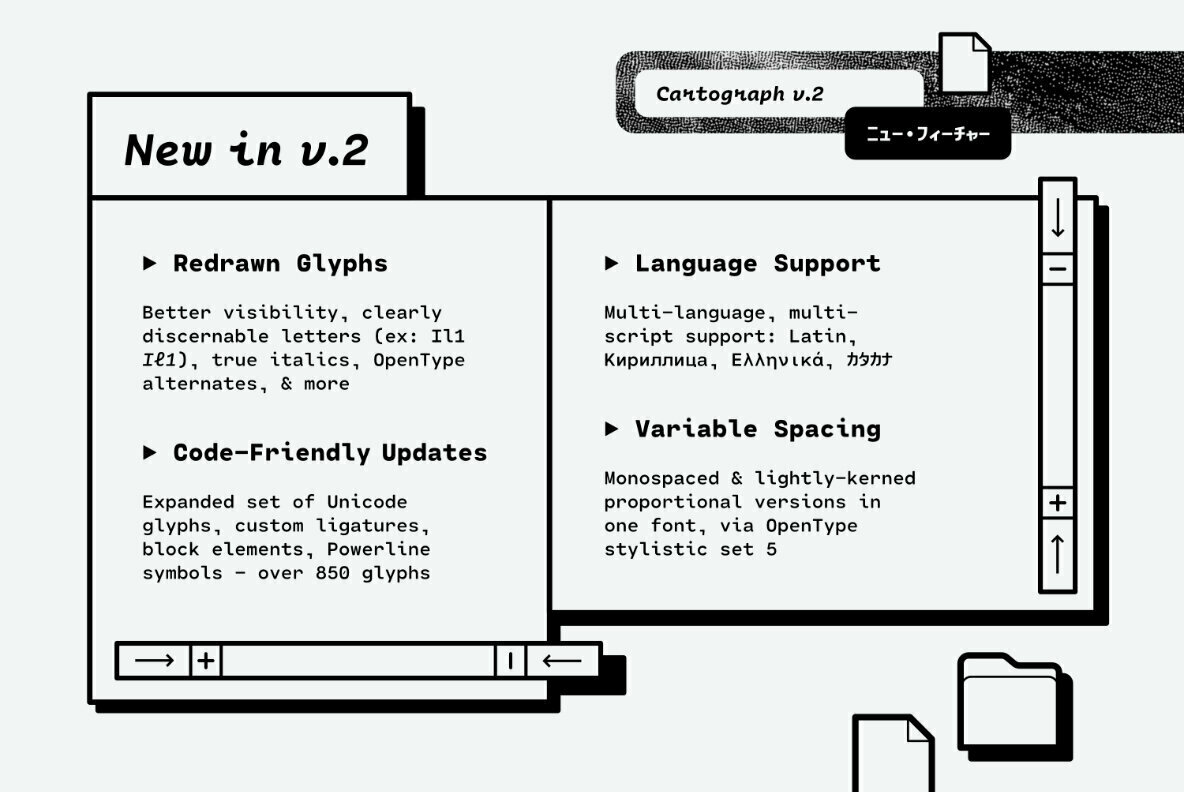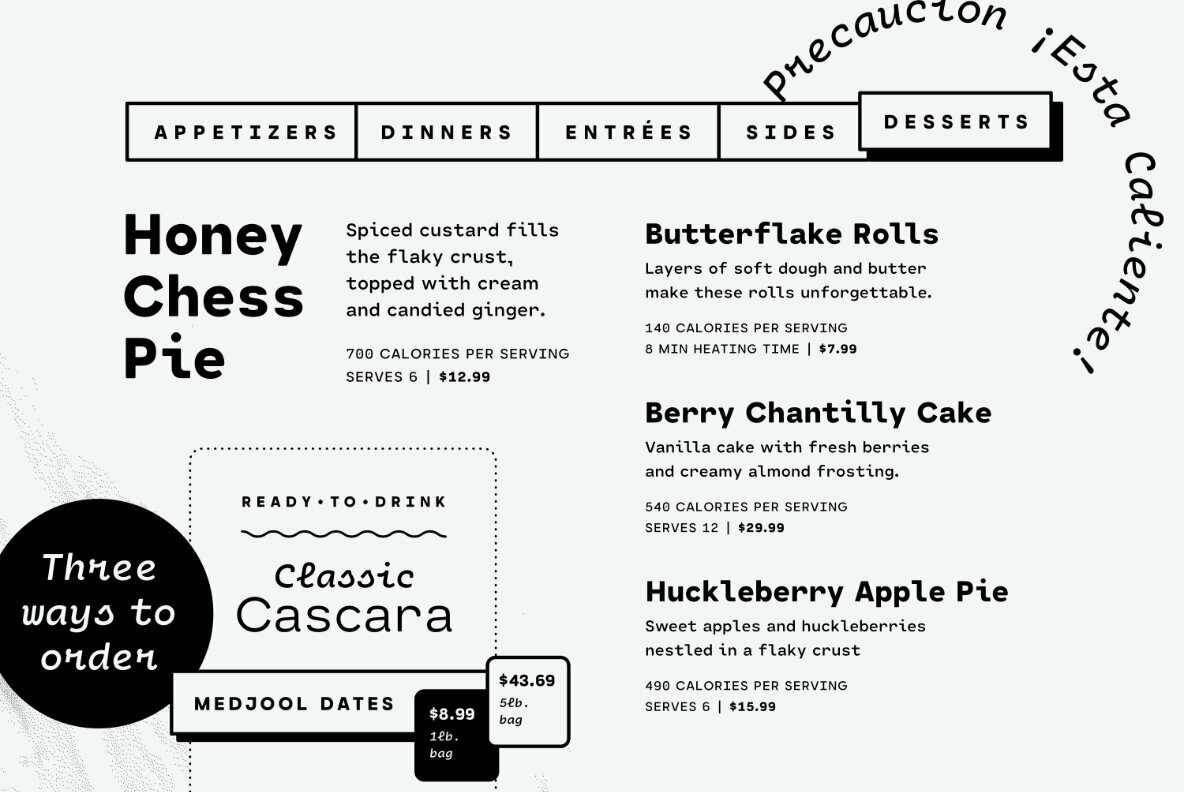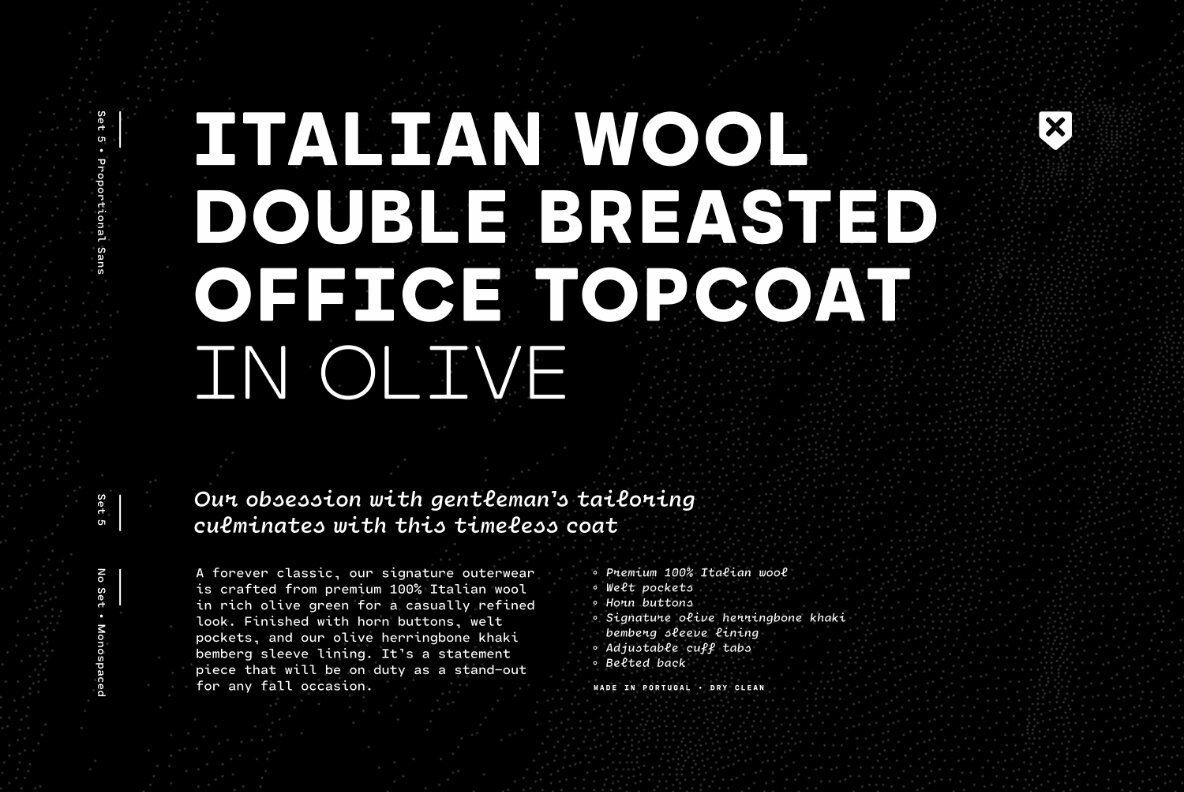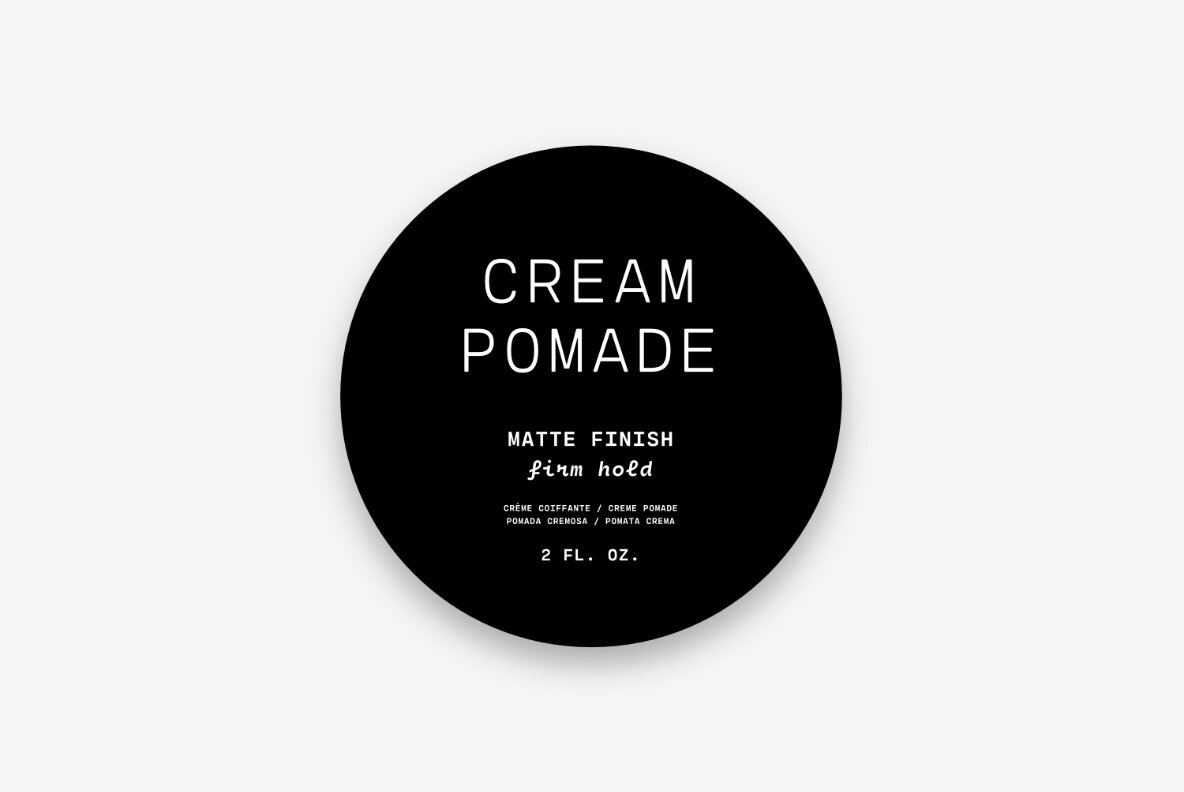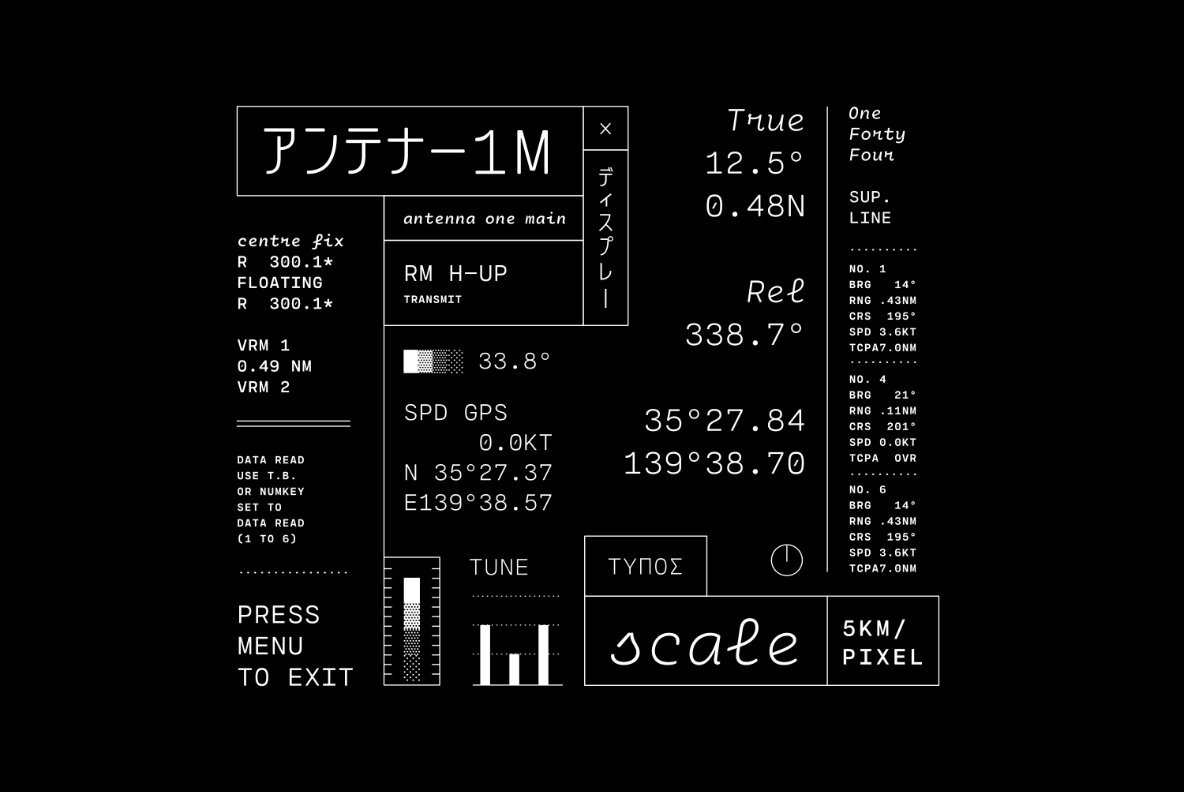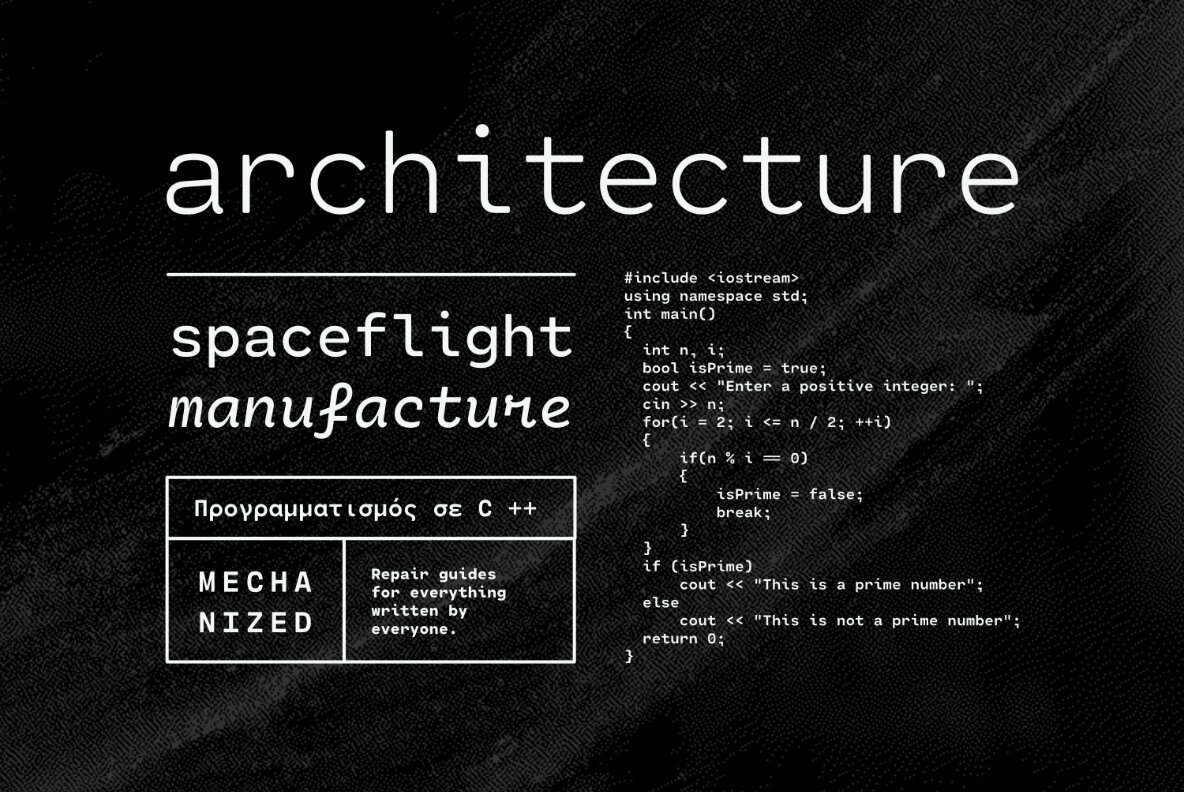
Cartograph CF Font
A monospaced typeface with character and warmth, Cartograph© CF is a handsome font family featuring a lush, cursive italic, code-friendly ligatures, and a proportional set accessible via OpenType. A tribute to the utilitarian beauty of terminals and typewriters, Cartograph excels in code and prose.
- Eight weights and true italics
- Mono and proportional sets
- Latin, Cyrillic, Greek, Katakana
- 850 glyphs and coding symbols